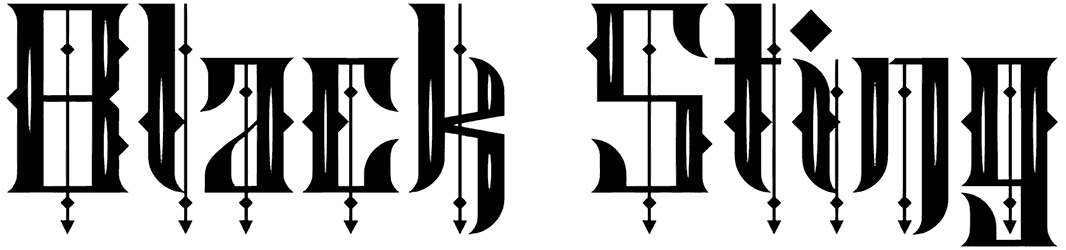
Black Sting Font
There is nothing more tempting than a vintage gothic font such as Black Sting that comes with a classic style and carries a vibe of eerie eccentricity, uniqueness, or jauntiness.
Aside from the undeniable fact that this font doesn’t support numbers, it is still worth trying in movie posters, street brochures, digital banners, magazines, or logos. We have gathered a vast font collection for your own convenience, so don’t hesitate to visit the RB library.